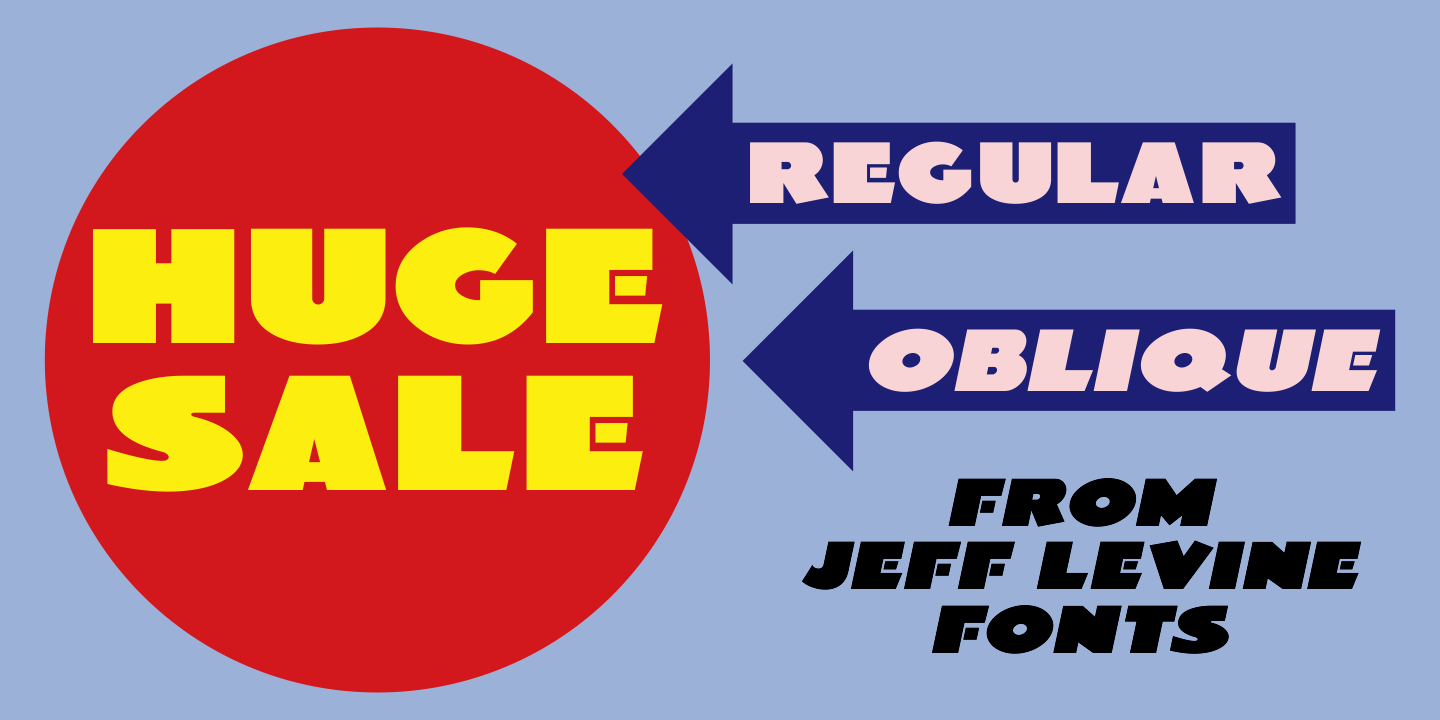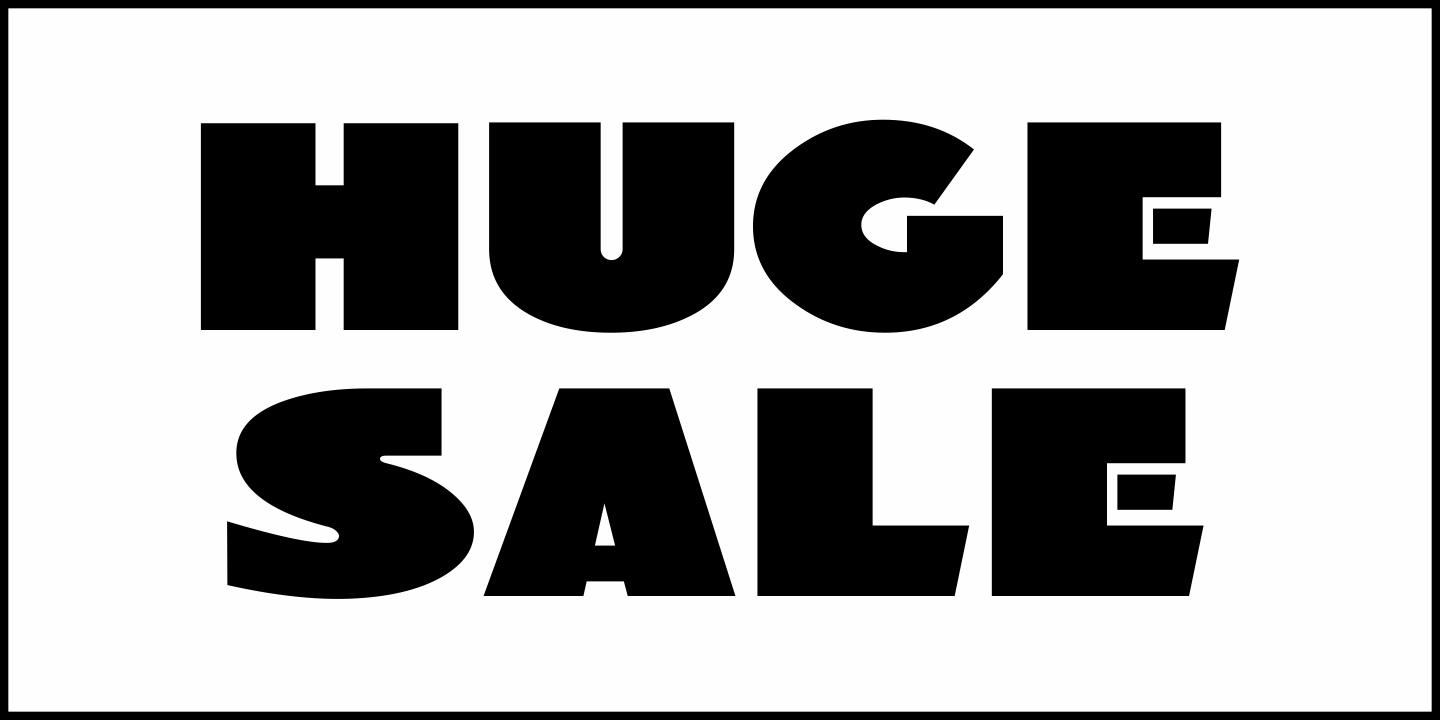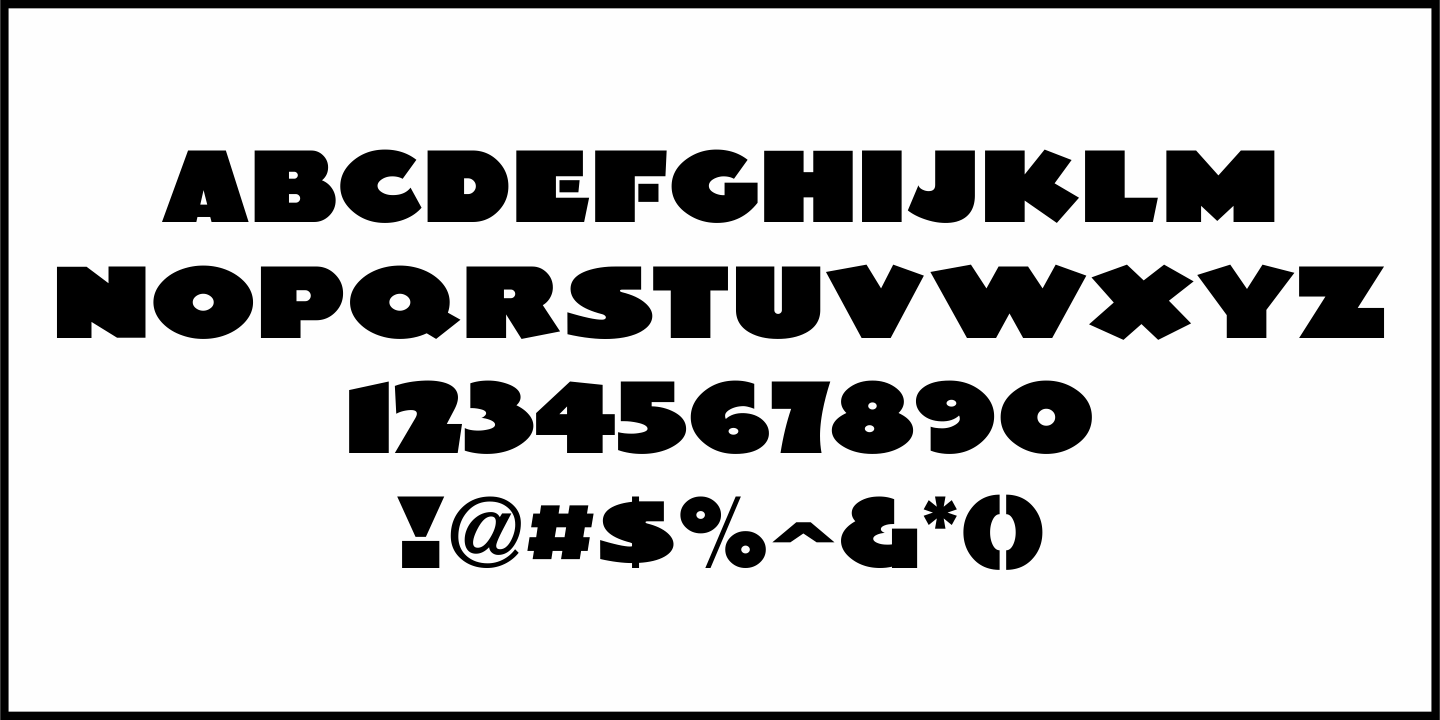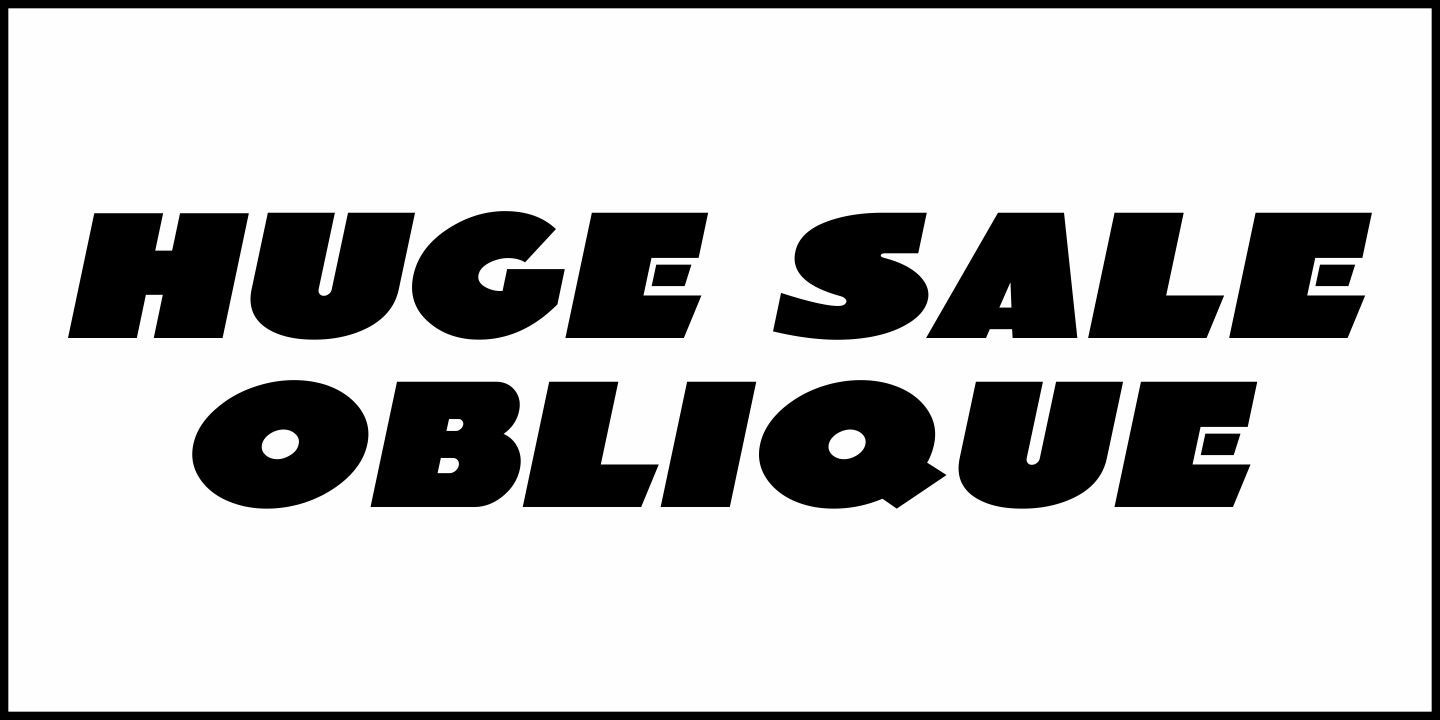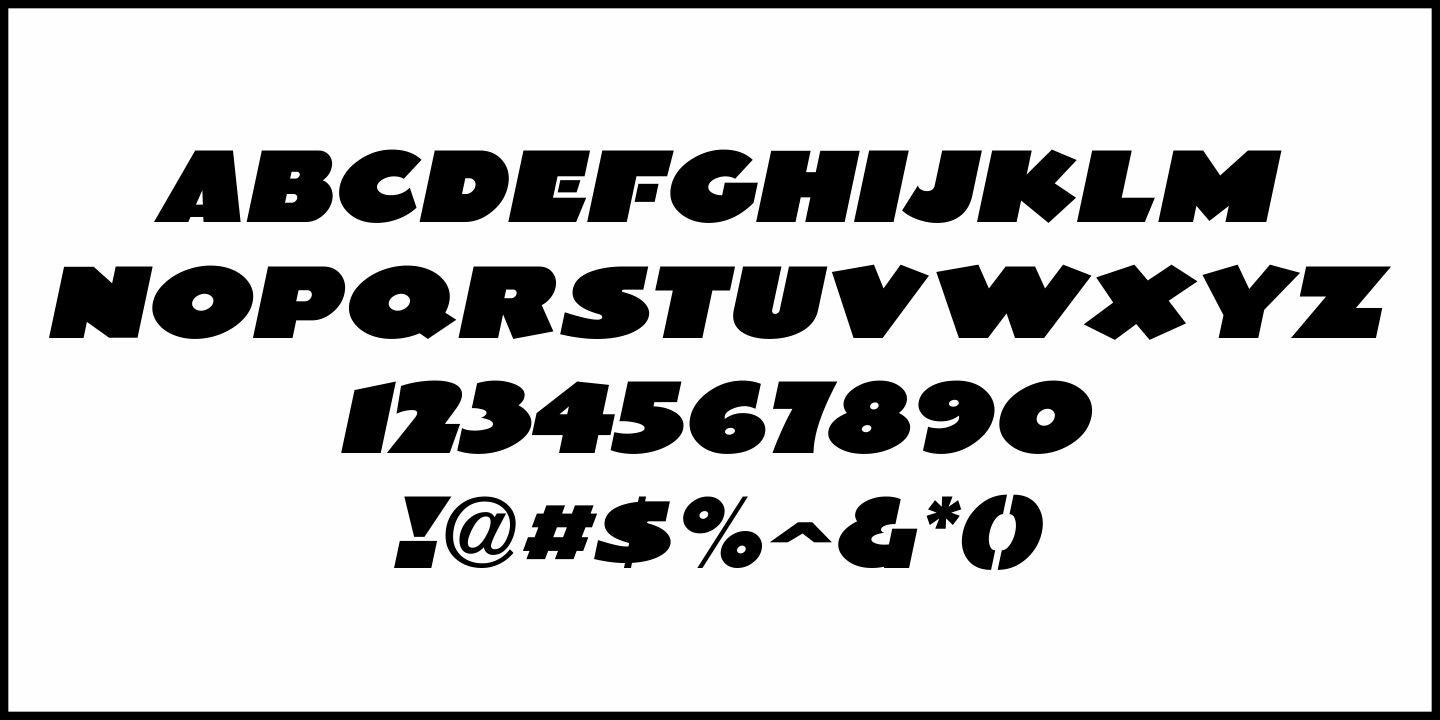
Huge Sale
Big, wide and extra bold sans serif poster lettering was found within the pages of the Speedball 12th Edition Textbook from 1935.
This served as the model for Huge Sale JNL, which is available in both regular and oblique versions.